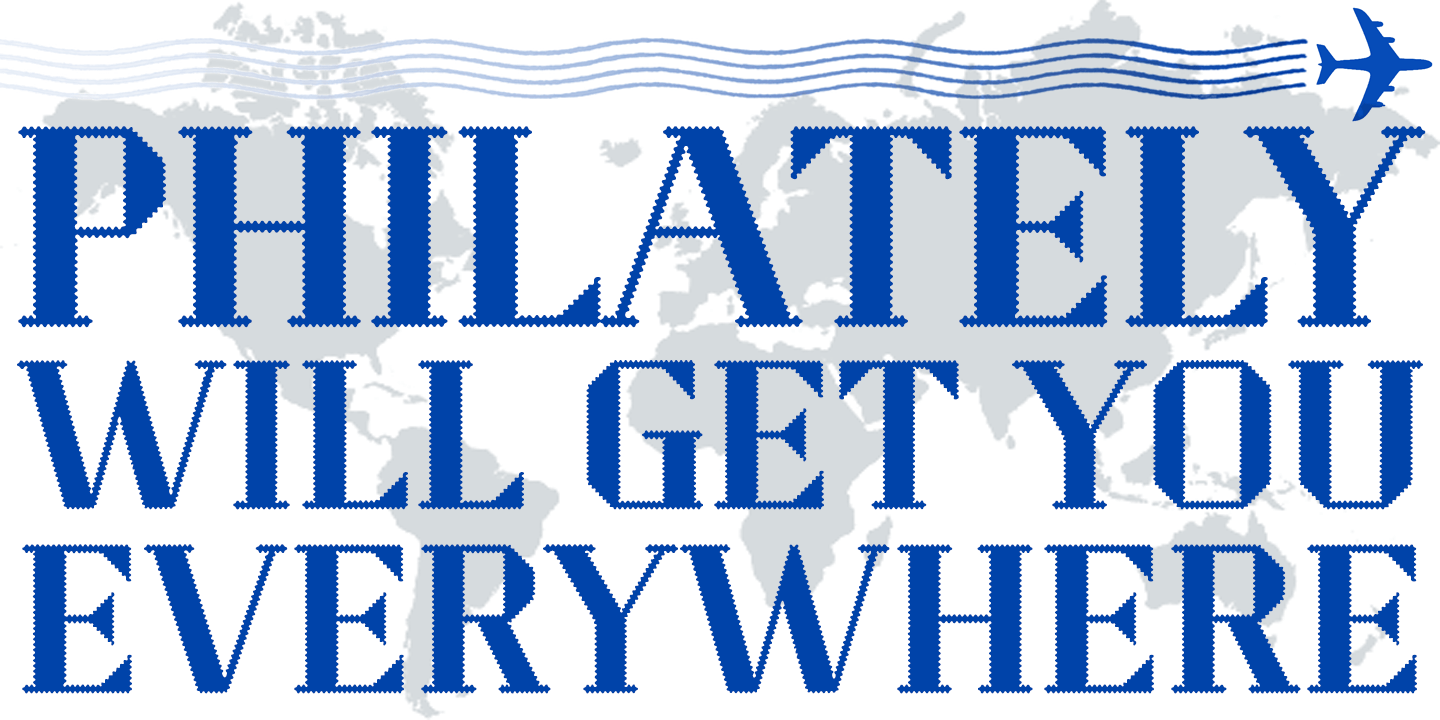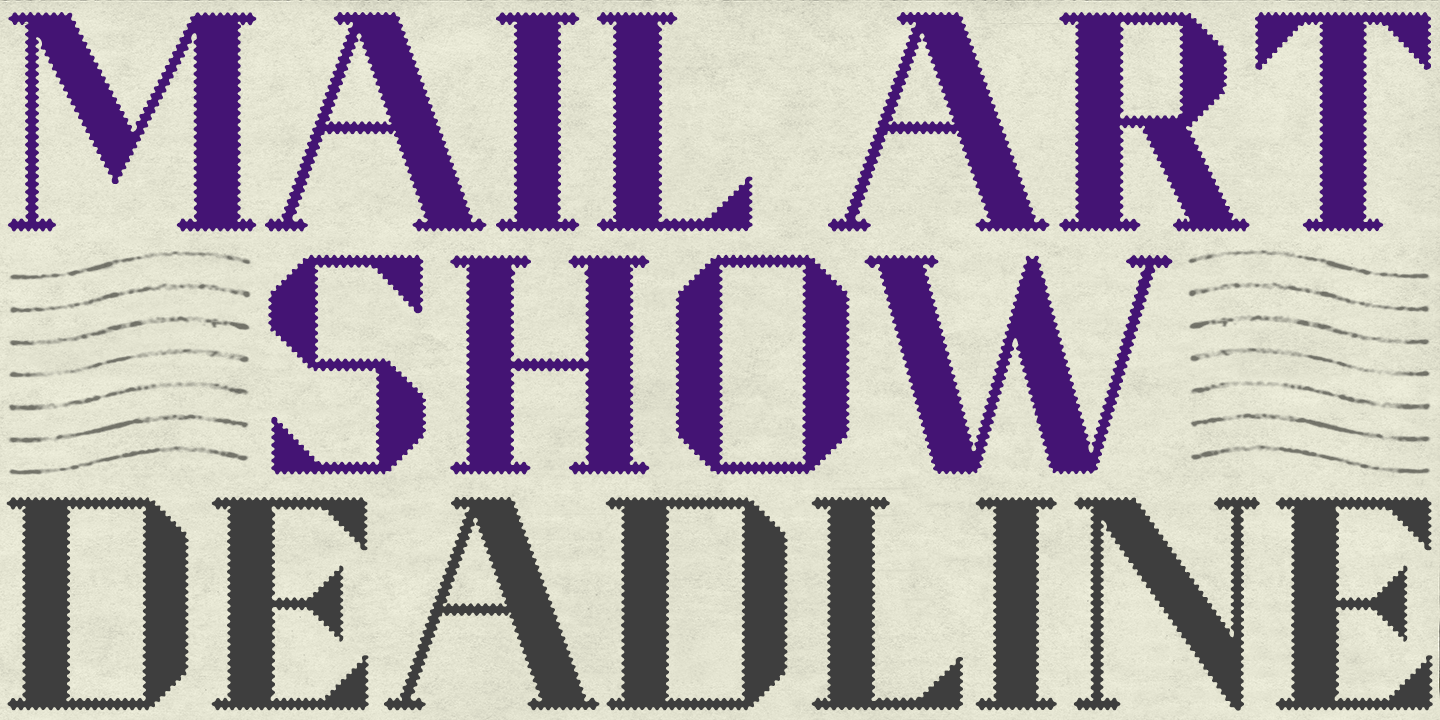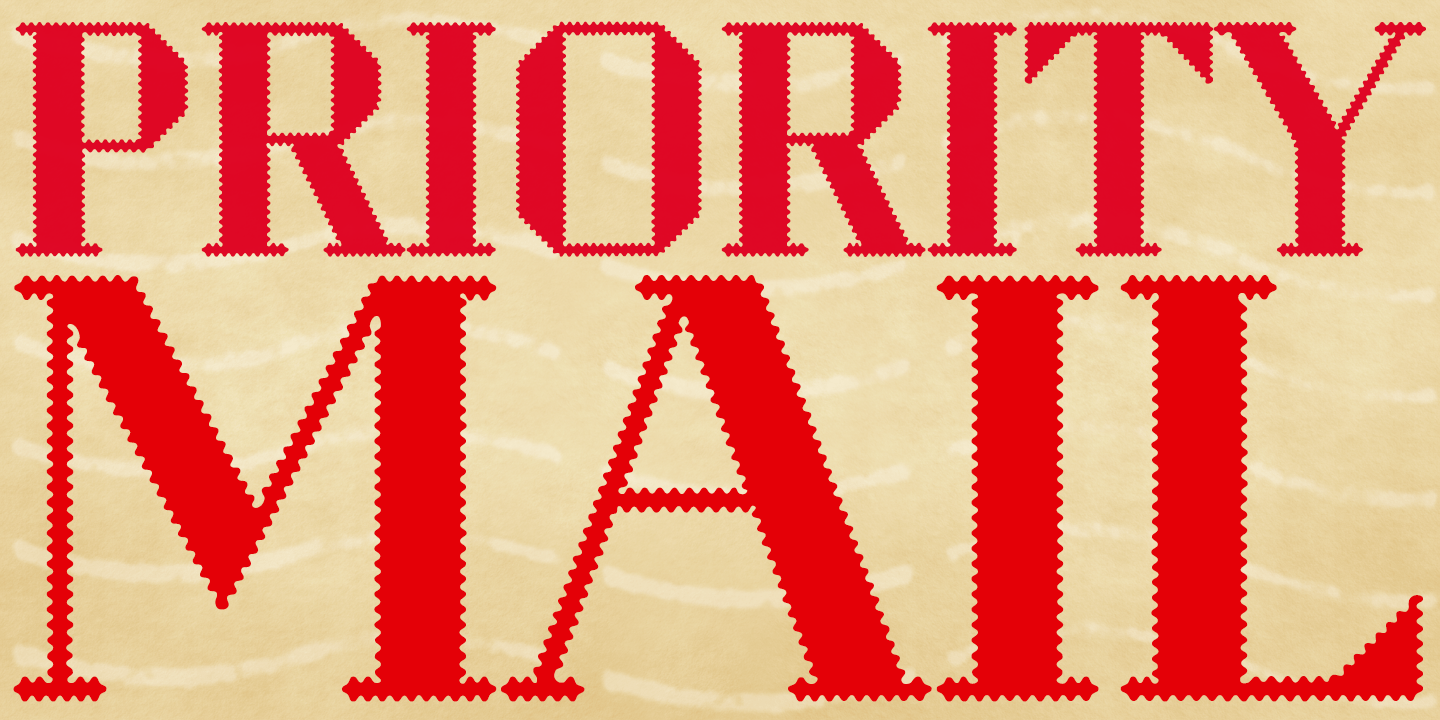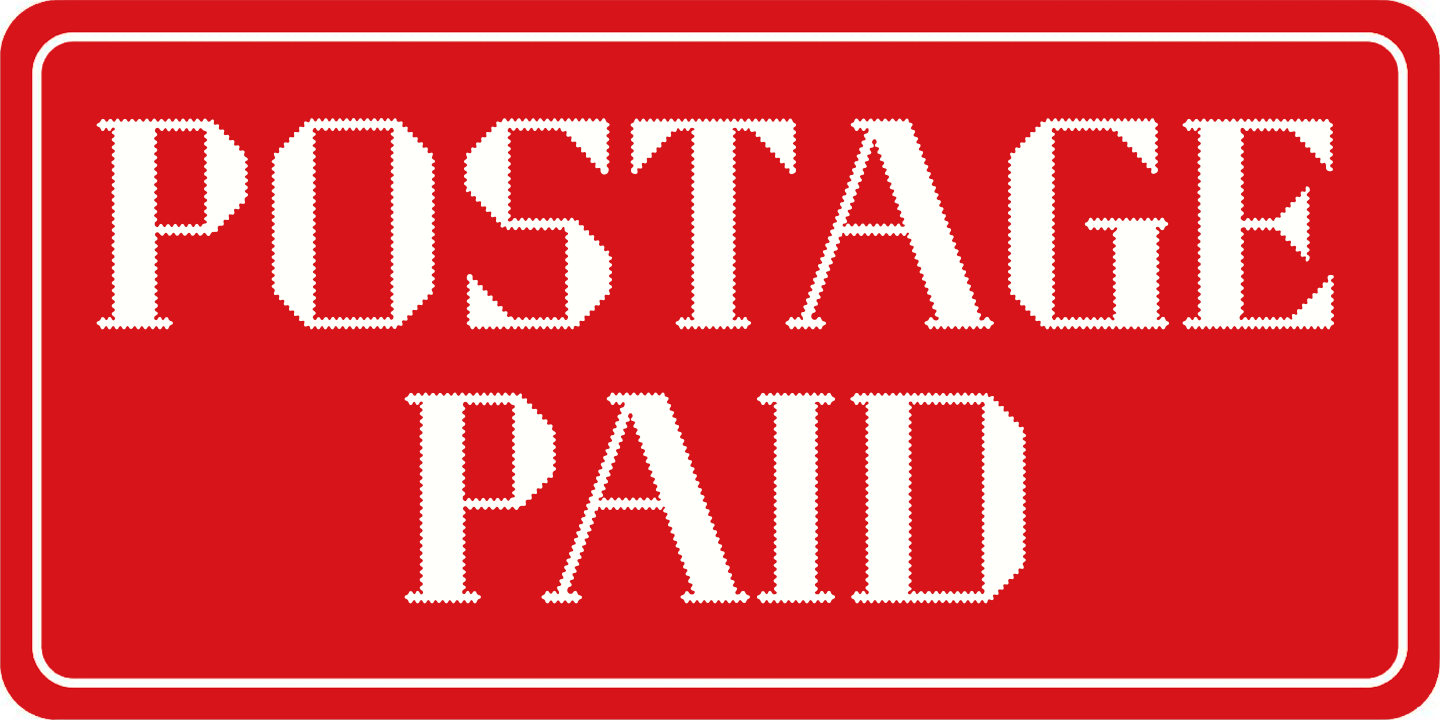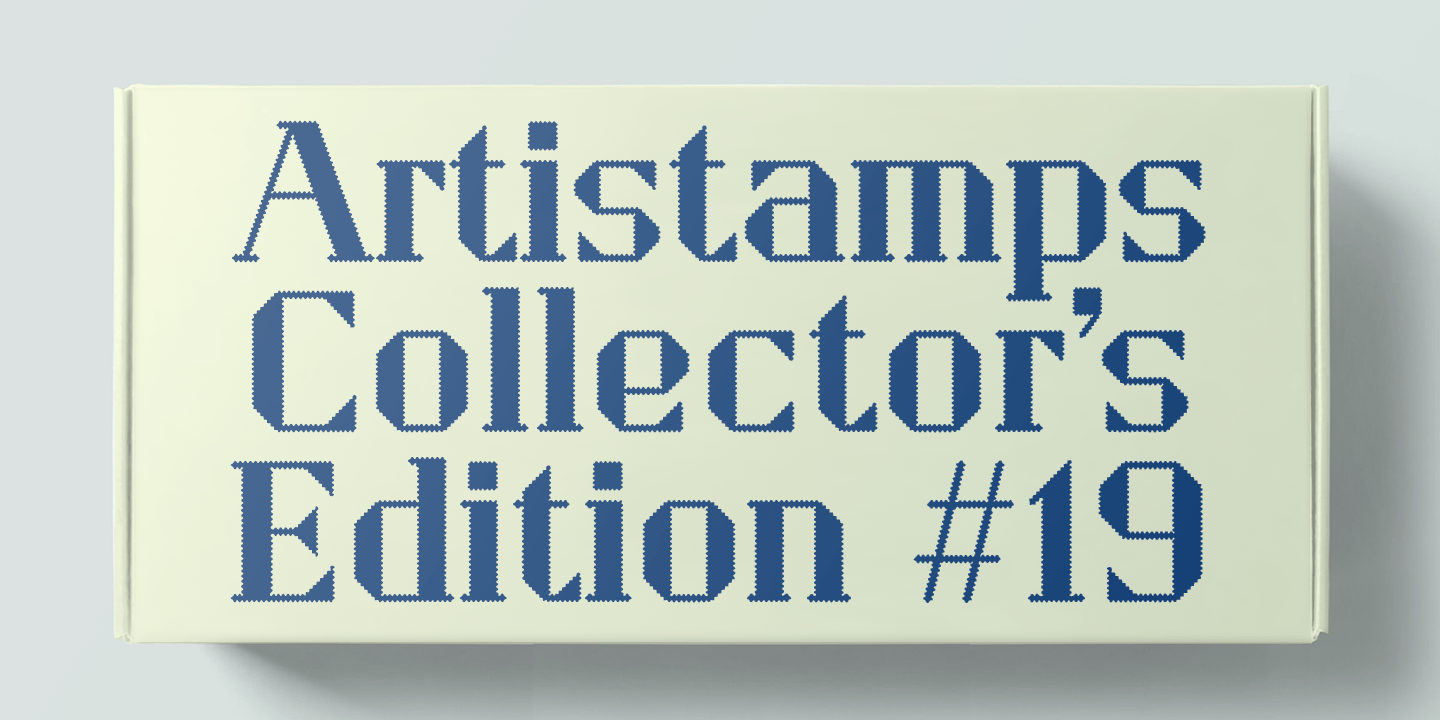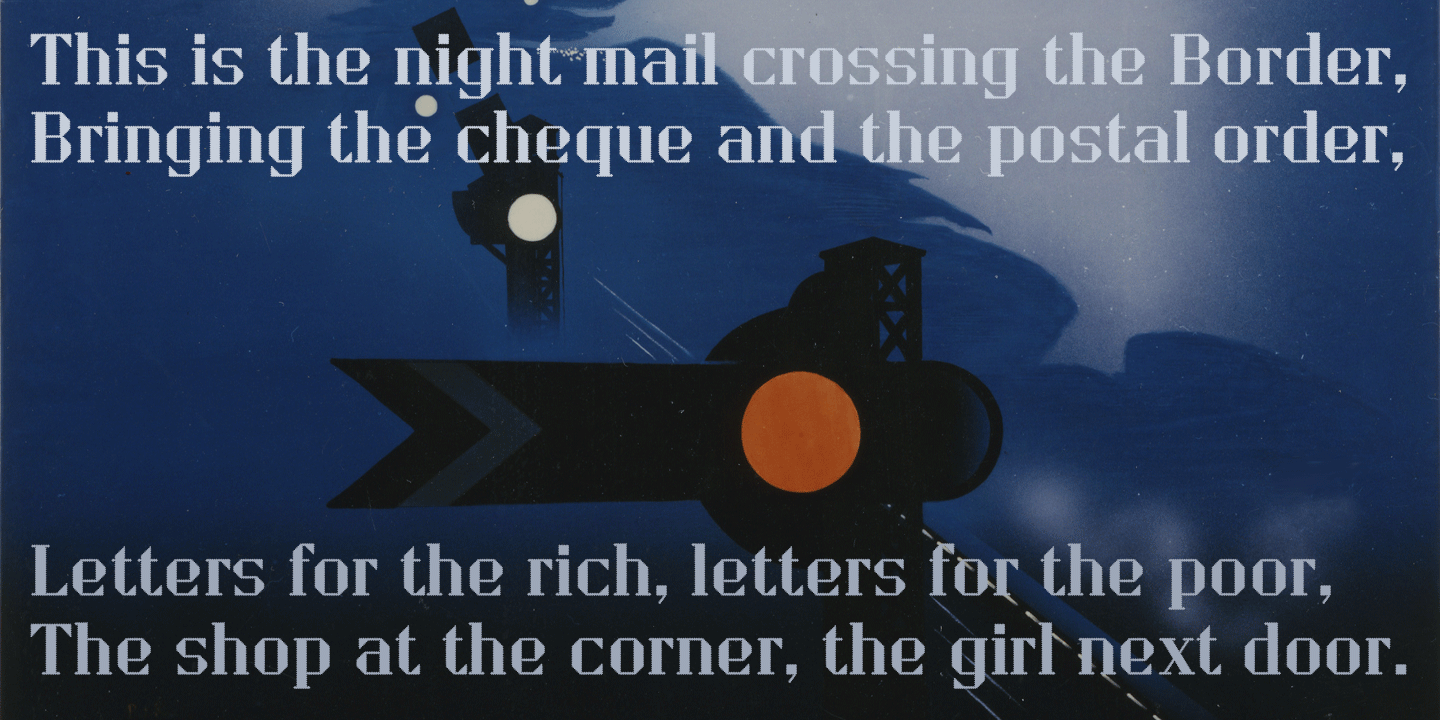
Perforator
Perforator is a display face based on K-Type’s Straight Line typeface with edges that simulate stamp perforations.
Two fonts are included. Perforator is designed for large-scale use such as posters and signage. Perforator Grande has bigger perforations for use at smaller sizes on flyers, banners, document headings, etc.
For post offices, mail systems, philatelists and stamp dealers, Perforator is the perfect visual signifier for any kind of ‘stampiness’. A full complement of Latin Extended-A characters is included.